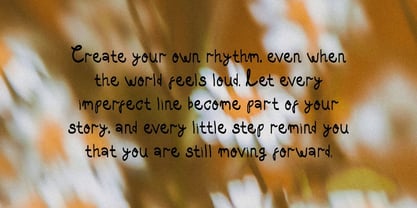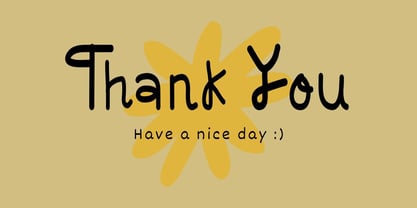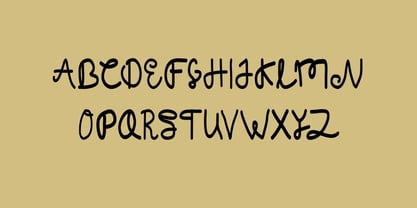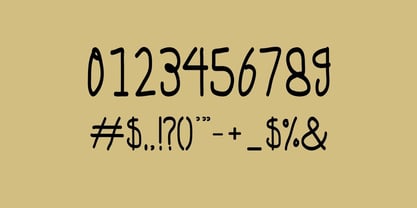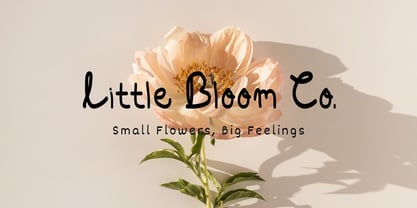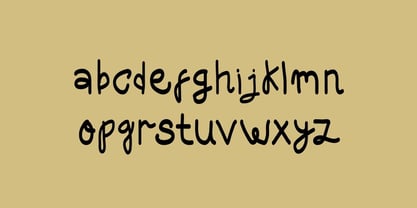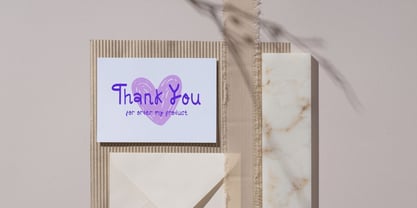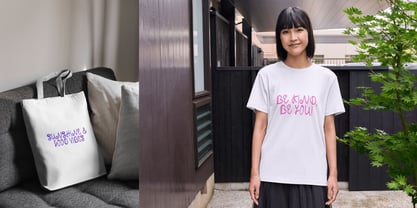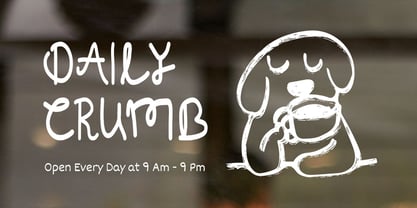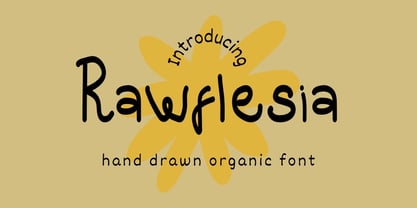
Rawflesia Hand Drawn Font
La familia tipográfica Rawflesia Hand Drawn Font fue diseñada por Muhammad Faridz Ramadhan y publicada por Mufara Studio. Rawflesia Hand Drawn Font contiene 1 estilos. Más información sobre esta familia
Rawflesia – Hand Drawn Organic Font
Rawflesia is a playful hand-drawn font inspired by natural imperfections and the charm of handmade lettering. Its organic shapes, irregular strokes, and relaxed character create a warm, authentic, and personal feel.
Designed to bring a creative and friendly touch to your projects, Rawflesia is perfect for floral branding, handmade products, café designs, packaging, greeting cards, posters, T-shirts, tote bags, stationery, social media content, and lifestyle projects.
Its casual handwritten appearance makes every word feel expressive and approachable, while the
organic letterforms add a unique handmade personality to your designs.
Rawflesia — let your ideas bloom with a little handmade character.